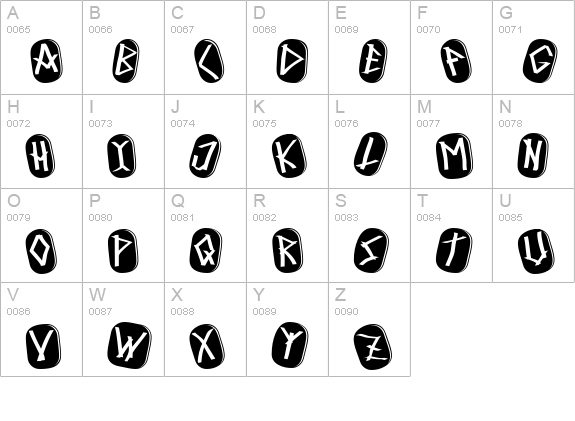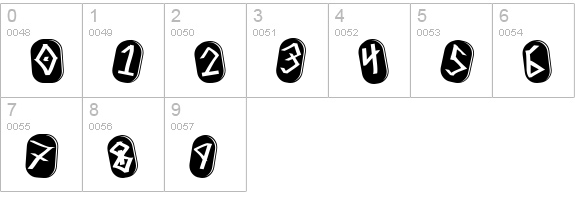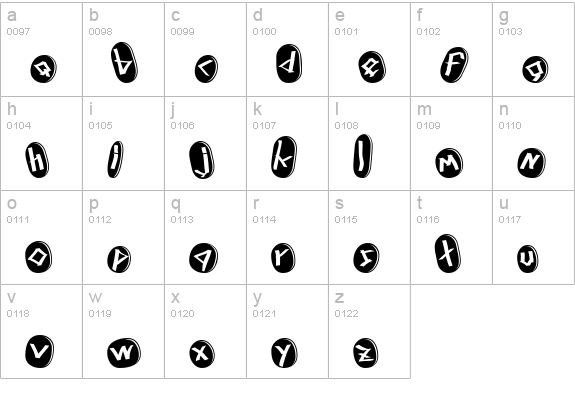
Runez of Omega Font Details
Runez of Omega font is a stunning display typeface that exudes a mystical and ancient vibe. With its intricate rune-like characters and futuristic elements, this font is perfect for creating eye-catching designs that demand attention. Whether you're working on a fantasy-themed project or looking to add a touch of mystery to your designs, Runez of Omega font is sure to impress. What's even better is that Runez of Omega font is available for free download at FontsMarket.com. This means you can easily access this unique font and use it in your personal and commercial projects without any hassle. Don't miss out on the opportunity to enhance your designs with the captivating allure of Runez of Omega font – download it now and let your creativity shine!